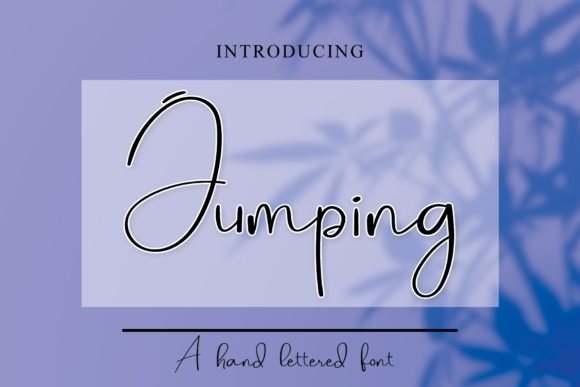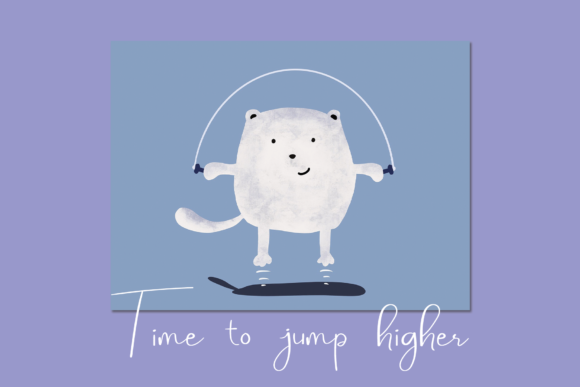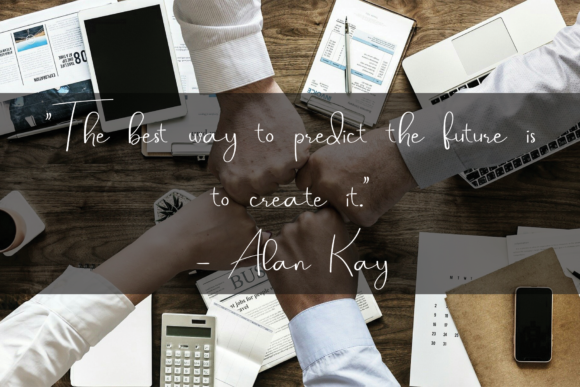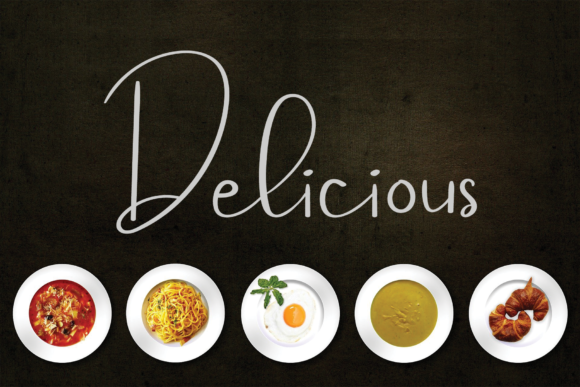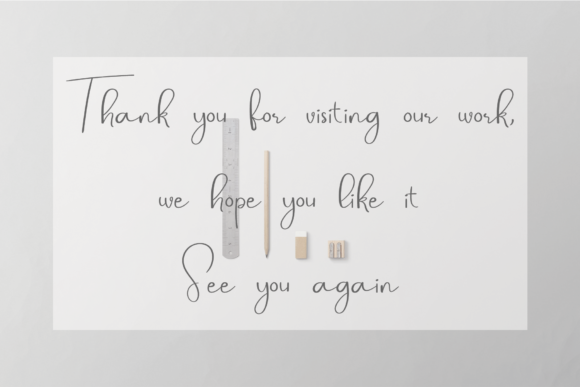
Jumping Font
Jumping is a fashionable script font that adds a touch of elegance and style to any design project. With its thin and sleek letterforms, this font exudes a sense of sophistication and modernity.
The slender and well-balanced characters of Jumping give it a fashionable and trendy appearance. Whether you’re creating branding materials, logos, invitations, posters, or social media graphics, this font will instantly enhance the overall aesthetic of your designs.
The versatility of Jumping makes it suitable for a wide range of topics and themes. Its clean and legible letterforms allow it to adapt to various design styles, from minimalist and contemporary to luxurious and high-end.
The thin lettered style of Jumping creates an effortlessly chic look that can elevate any creation. It adds an air of sophistication and refinement to your designs, making them stand out and catch the attention of your audience.
Whether you’re designing for fashion, beauty, lifestyle, or any other creative industry, Jumping can be a valuable asset in your font library. Its sleek and fashionable appearance will bring a touch of elegance to your projects, enhancing their overall visual impact.
In summary, Jumping is a thin lettered and fashionable script font that has the potential to enhance any creation. Its sleek and sophisticated style makes it a versatile choice for a wide range of design projects. With Jumping, you can add a touch of elegance and modernity to your designs, making them visually appealing and memorable.